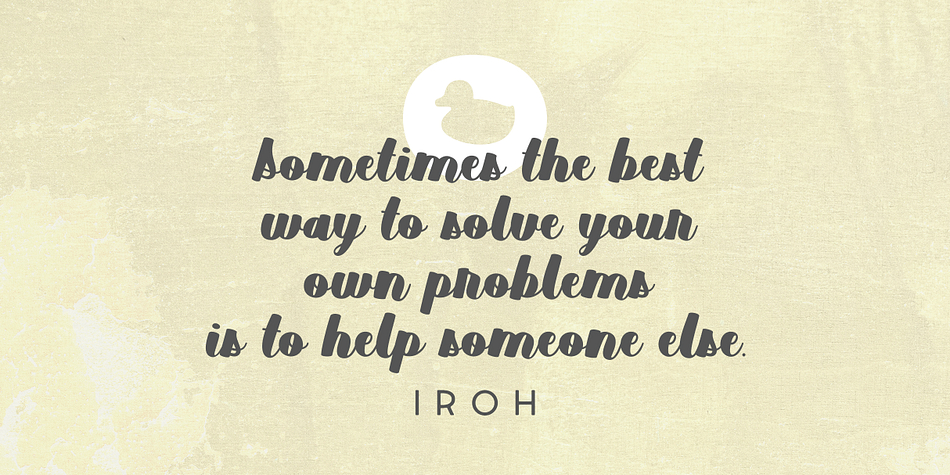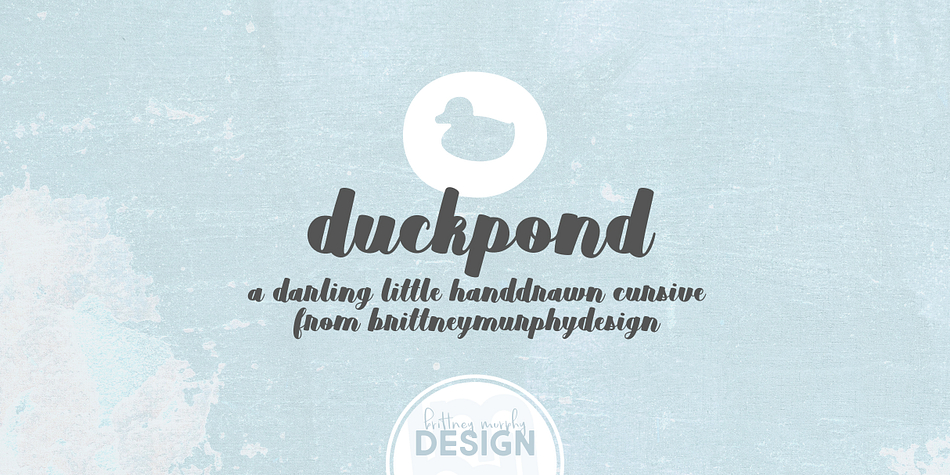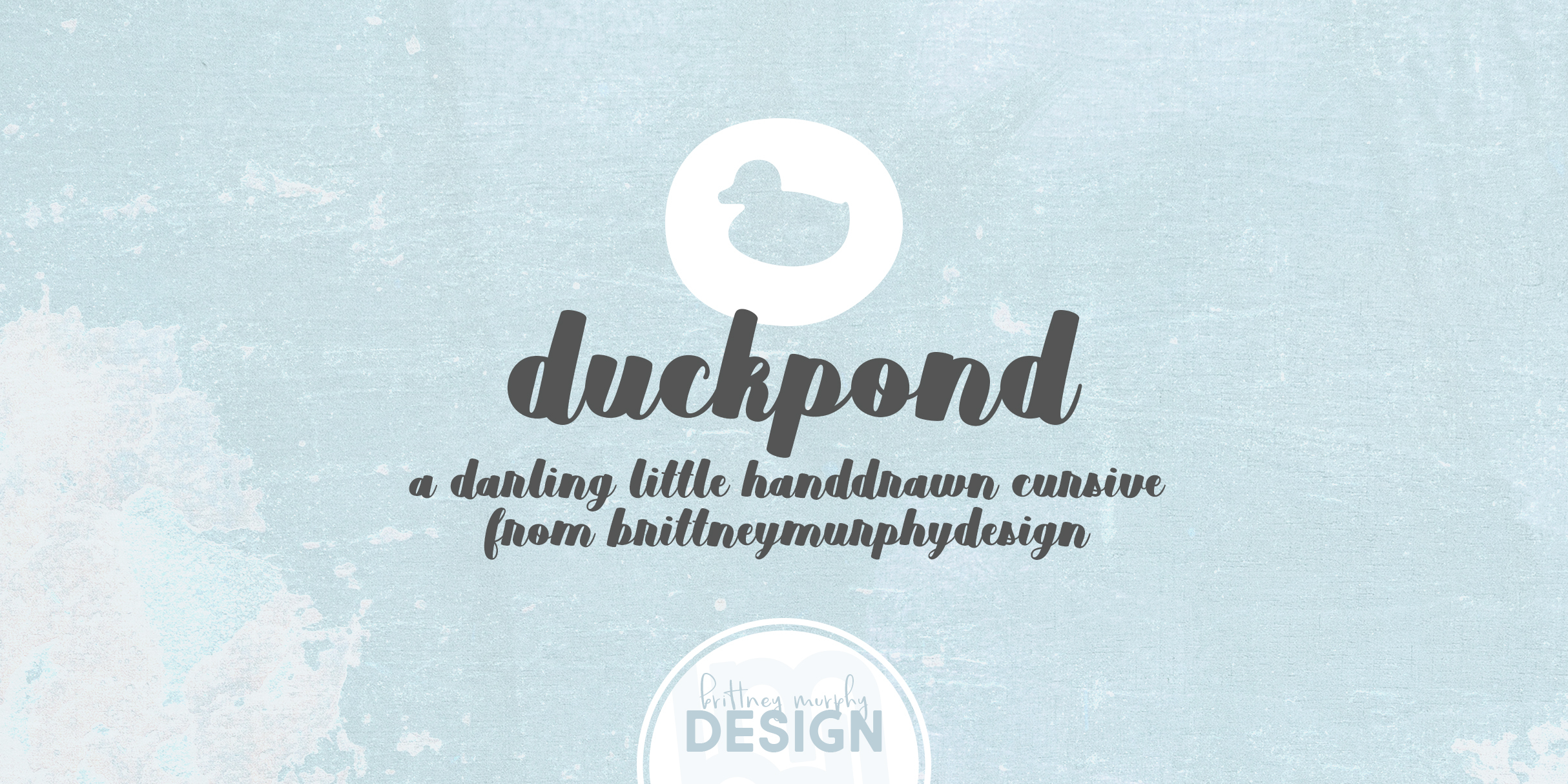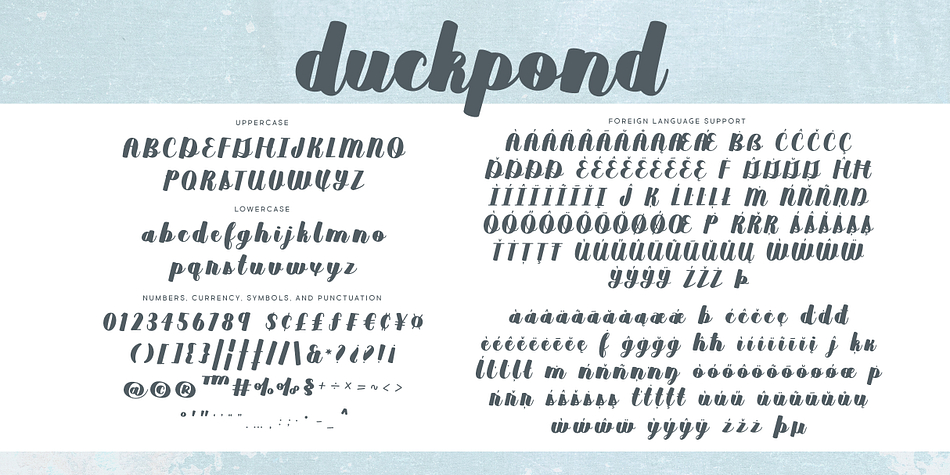
Duckpond
Designed by Brittney Murphy, Duckpond is a script font published by Brittney Murphy Design.
The Duckpond font is a charming handwritten cursive. Thick and expressive, but legible, it’s perfect for nursery decor and other adorable designs.